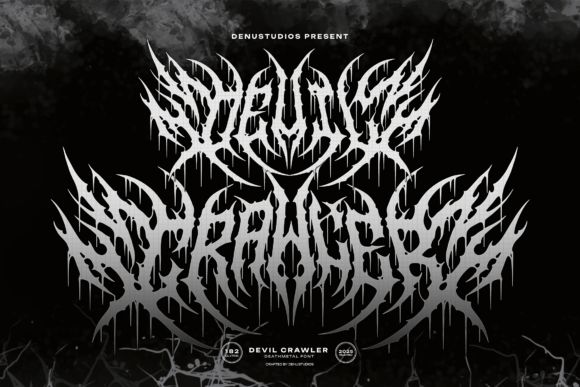
Devil Crawler: A Font of Intensity and Darkness
Fonts are more than just characters—they're the visual heartbeat of your message. When it comes to making a bold, unforgettable impression in genres like death metal, horror, or underground culture, Devil Crawler rises to the occasion with unmatched ferocity. This font isn’t for the faint-hearted; it’s crafted for those who want their branding to scream rather than whisper. With its razor-sharp edges and dripping darkness, Devil Crawler embodies raw intensity, making it an ideal choice for logos, merchandise, and creative projects that demand attention.
What Makes Devil Crawler Unique?
Devil Crawler is a death metal-inspired typeface that pushes the boundaries of typographic design. It blends jagged, aggressive letterforms with deep shadows and intricate detailing to create a sense of unease and power. The 182 glyphs included offer a rich set of characters, symbols, and stylistic variants—giving designers the flexibility to craft unique visuals without compromising on the font’s core aesthetic.
Its appeal lies not only in appearance but also in purpose. Designed with extreme subcultures in mind, Devil Crawler delivers a level of intimidation and edge that few other fonts can match. Whether you're designing a logo for a new band or creating promotional material for a horror film, this font helps you convey chaos and horror with precision.
Key Characteristics of Devil Crawler
- Aggressive Lettering: Each character is built with sharp angles and menacing curves, evoking a primal energy that fits perfectly within the death metal genre.
- Detailed Glyphs: The inclusion of 182 glyphs ensures there's something for every need, from standard text to special symbols and alternate styles.
- High Contrast: The stark contrast between light and dark elements makes Devil Crawler stand out even in low-resolution formats.
- Optimized for Legibility in Context: Despite its brutal look, the font maintains enough structure to be readable when used appropriately, especially in larger sizes.
Practical Uses for Devil Crawler
Devil Crawler is more than just a flashy font—it has real-world applications across various industries and creative fields. Here are some scenarios where it truly shines:
Extreme Metal Band Logos
For musicians in the death metal scene, a logo is often the first point of contact with fans. Devil Crawler provides the perfect canvas for crafting logos that exude aggression and authenticity. Its sharp, chaotic style aligns seamlessly with the themes and sounds of death metal, helping bands carve their identity into the minds of listeners.
Use Case: Imagine a new death metal band named "Infernal Vein" launching their first EP. Using Devil Crawler in their logo instantly communicates the intensity of their music, setting them apart in a crowded market. The font adds depth and character, reinforcing the band's commitment to their sound and image.
Horror Film Branding
When promoting a horror movie, the right typography can make all the difference. Devil Crawler’s ominous presence is ideal for posters, title cards, and promotional materials that aim to unsettle and intrigue audiences. It doesn’t just look scary—it feels dangerous.
Use Case: A filmmaker working on a low-budget indie horror project might use Devil Crawler for the main title on their trailer. The font’s dark aesthetic complements scenes of dread and tension, drawing viewers into the story before they’ve even seen a single frame.
Underground Merchandise Design
Merchandise is a vital revenue stream for many artists and brands. For underground creators looking to sell t-shirts, vinyl records, or zines, Devil Crawler offers a way to maintain consistency with their brand’s vibe. Its high-impact design ensures that the merch remains visually striking and thematically aligned.
Observation: Many successful underground labels have reported increased customer engagement when using fonts like Devil Crawler. Fans recognize the style as authentic and associate it directly with the brand’s ethos.
Video Game Titles and UI Elements
If you're designing a game set in a dark fantasy world or one that leans into horror aesthetics, Devil Crawler can serve as a powerful tool. From title screens to menu options, it adds a layer of menace and mystery that enhances the overall experience.
Recommendation: Use Devil Crawler sparingly in UI elements to avoid overwhelming players. Pair it with softer secondary fonts to balance readability and atmosphere.
Print and Digital Art Projects
Graphic designers and illustrators often seek fonts that complement their artistic vision. Devil Crawler is well-suited for print art such as album covers, book jackets, and posters, as well as digital content like social media posts and website headers. Its versatility allows it to adapt to both static and dynamic formats while retaining its core identity.
Why Choose Devil Crawler Over Other Fonts?
In a world filled with generic sans-serif and serif fonts, Devil Crawler stands out by offering a unique blend of form and function tailored for niche markets. While many fonts attempt to evoke fear or intensity through exaggerated designs, Devil Crawler achieves it with a refined balance of detail and impact.
One of the most significant advantages of Devil Crawler is its ability to communicate a strong visual message quickly. In branding and marketing, first impressions matter, and this font ensures yours will be anything but forgettable.
Additionally, because it's optimized for clarity at larger sizes, it works exceptionally well in environments where visibility is key—such as concert banners, large-scale posters, and merchandise tags. This makes it a practical choice despite its extreme style.
Communication Through Visual Language
Typography plays a crucial role in how people perceive your message. Devil Crawler speaks a language of chaos and defiance, which can be incredibly effective in certain contexts. When used correctly, it doesn't just display text—it tells a story.
Example: A black metal record label uses Devil Crawler for the title of their latest release. The font immediately signals the album’s tone and style, giving potential buyers a clear expectation of what to expect sonically and visually.
Design Considerations and Best Practices
While Devil Crawler is a powerful tool, it's essential to approach its usage with care. Here are some practical considerations to ensure it enhances your design rather than detracts from it:
- Contrast Matters: Because of its dark and edgy nature, Devil Crawler should be paired with light or neutral backgrounds to maximize readability and visual impact.
- Limit Usage: Avoid using it in body text or long paragraphs. It’s best suited for headlines, titles, and short bursts of text where maximum effect is needed.
- Test Across Platforms: Always preview Devil Crawler on different devices and resolutions to ensure it looks consistent and legible in all environments.
- Pair Thoughtfully: Combine it with complementary fonts—like a clean sans-serif or a gothic-style serif—for a balanced typographic hierarchy.
Accessibility and Usability
Despite its intense appearance, Devil Crawler can be accessible if used responsibly. Ensure sufficient spacing and sizing when incorporating it into designs, particularly for digital platforms where users may access content on varying screen sizes. Accessibility tools and color contrast checkers can help maintain usability without sacrificing the font’s dramatic flair.
Real-World Applications and Industry Insights
Professionals across multiple industries have adopted Devil Crawler for specific purposes. Marketing teams in the entertainment sector use it for event promotions and limited-edition releases. Educators and bloggers in niche areas leverage it to attract attention and establish credibility among dedicated audiences.
Industry Insight: One notable example includes a horror-themed podcast that rebranded using Devil Crawler for their logo and cover art. They saw a measurable increase in audience retention and social media shares, attributing part of that success to the font’s compelling visual identity.
Business and Entrepreneurial Value
Entrepreneurs running niche businesses—especially those targeting fans of heavy metal, horror, or alternative lifestyles—can benefit greatly from Devil Crawler. It helps reinforce brand personality and attracts the right kind of attention. For startups aiming to carve out a unique space in a saturated market, this font can act as a signature element that sets them apart.
Final Thoughts on Implementation
Before implementing Devil Crawler into your next project, consider your audience and the message you want to send. If your goal is to create a sense of danger, rebellion, or otherworldliness, then this font is an excellent fit. However, if your content requires subtlety or broad accessibility, you may want to explore alternatives.
Always evaluate the font in the context of your full design. Test it in mockups, compare it with other options, and get feedback from your target demographic. Devil Crawler is a strong contender for any project needing a touch of darkness, but it's not a one-size-fits-all solution.
Whether you're a designer, marketer, educator, or artist, Devil Crawler offers a compelling option for expressing intensity and originality. Used thoughtfully, it can become a defining feature of your work, leaving a lasting mark on everything from logos to digital campaigns.